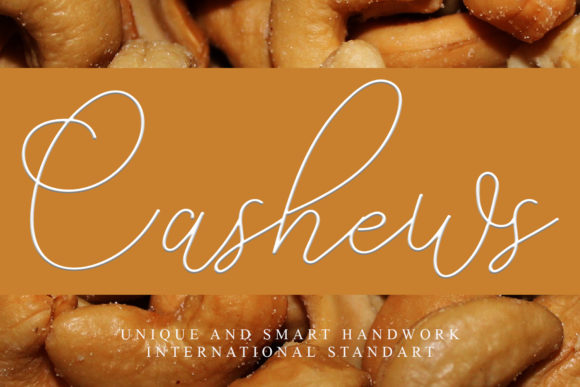
Cashews Font: Elevate Your Designs with a Touch of Elegance
In the world of typography, a font can make or break a design. For those seeking a touch of sophistication and refinement, the Cashews Font is an excellent choice. This fashionable and elegant handwritten font is perfect for designers and crafters looking to add a delicate, thin, and smooth vibe to their creations.
The Essence of Cashews Font
Cashews Font is a beautifully crafted handwritten font that exudes elegance and poise. Its delicate strokes and smooth lines create a refined aesthetic that is sure to impress. Whether you’re working on a branding project, a wedding invitation, or a digital design, Cashews Font is the perfect addition to give your work a touch of sophistication.
Key Features of Cashews Font
- Delicate and Thin: The font’s thin strokes create a light and airy feel, perfect for designs that require a subtle touch.
- Smooth and Refined: The smooth lines and curves of Cashews Font give it a polished look that’s ideal for high-end designs.
- Handwritten Charm: The font’s handwritten nature adds a personal touch to your designs, making them more approachable and engaging.
- Versatile: Cashews Font can be used in a variety of design projects, from digital graphics to print materials.
Why Choose Cashews Font?
With so many fonts available, why choose Cashews Font? Here are a few reasons why designers and crafters are falling in love with this elegant font:
- Unique and Eye-Catching: Cashews Font is a standout font that will set your designs apart from the crowd.
- Easy to Read: Despite its delicate nature, Cashews Font is surprisingly easy to read, making it perfect for body text and headlines.
- High-Quality: The font is crafted with precision and attention to detail, ensuring a high-quality look that’s consistent across various design applications.
Using Cashews Font in Your Designs
So, how can you incorporate Cashews Font into your designs? Here are a few ideas to get you started:
- Branding and Logos: Use Cashews Font to create a sophisticated brand identity that exudes elegance and refinement.
- Wedding and Event Invitations: Add a touch of luxury to your wedding or event invitations with Cashews Font.
- Digital Graphics: Use Cashews Font in your social media graphics, blog posts, and website headers to add a touch of sophistication.
- Print Materials: Cashews Font is perfect for print materials like brochures, business cards, and menus.
Tips and Tricks for Working with Cashews Font
To get the most out of Cashews Font, here are a few tips and tricks to keep in mind:
- Pair it with Bold Fonts: Combine Cashews Font with bold fonts to create a striking contrast that adds visual interest.
- Experiment with Colors: Try pairing Cashews Font with different colors to create a unique look that matches your brand or design aesthetic.
- Use it Sparingly: While Cashews Font is elegant and refined, it’s best used sparingly to avoid overwhelming the design.
In conclusion, Cashews Font is a fashionable and refined handwritten font that’s perfect for designers and crafters looking to add a touch of elegance to their designs. With its delicate, thin, and smooth vibe, Cashews Font is sure to be a hit in any design project. Whether you’re working on a branding project, a wedding invitation, or a digital design, Cashews Font is an excellent choice.